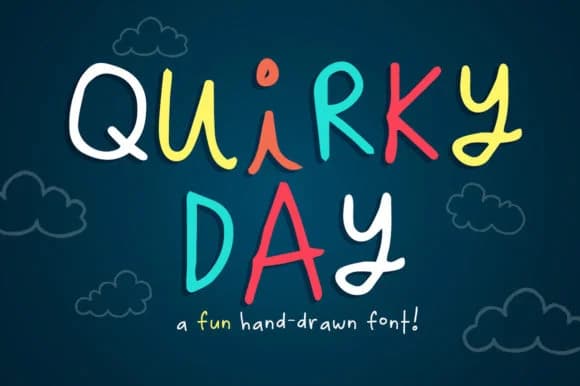
Quirky Day Font by Quirky Queen Media is a bouncy handwritten script with genuine personality and unpolished charm. The slightly irregular letterforms deliver an authentic, sketch-like quality that reads as intentional rather than sloppy, making it ideal for work where character and authenticity matter far more than formal polish or precision.
This font excels on wedding invitation suites where the hand-written aesthetic genuinely resonates with couples and guests looking for something personal and heartfelt, greeting card designs that need warmth and human connection, and boutique skincare or artisan craft packaging where custom craftsmanship sets you apart from mass-produced competitors. You'll find it equally effective in DIY craft signage and hand-drawn social media graphics for small makers and independent artists, Etsy shop branding and visual identity work, blog headers that feel intimate, and product packaging for artisanal businesses. The bouncy letterforms work wonderfully for children's storybook layouts, scrapbooking spreads, and journal covers too, where that particular mix of imperfection and authenticity creates genuine charm and reader connection. Its consistent weight keeps it readable even at smaller sizes while remaining memorable and distinctive at display scale.
Quirky Day Font is a script font that shines as a display or heading face. Pair it with a clean sans-serif or serif font for body text β the contrast creates a clear hierarchy while the two styles stay balanced and easy to read.